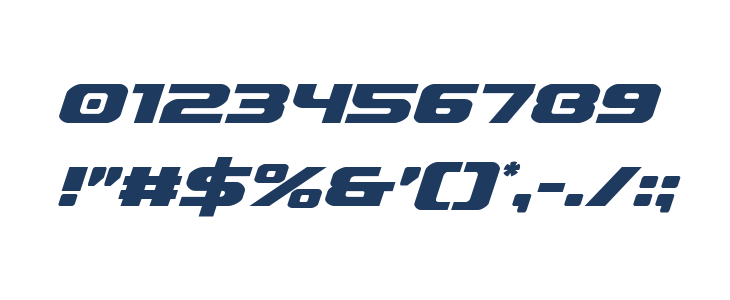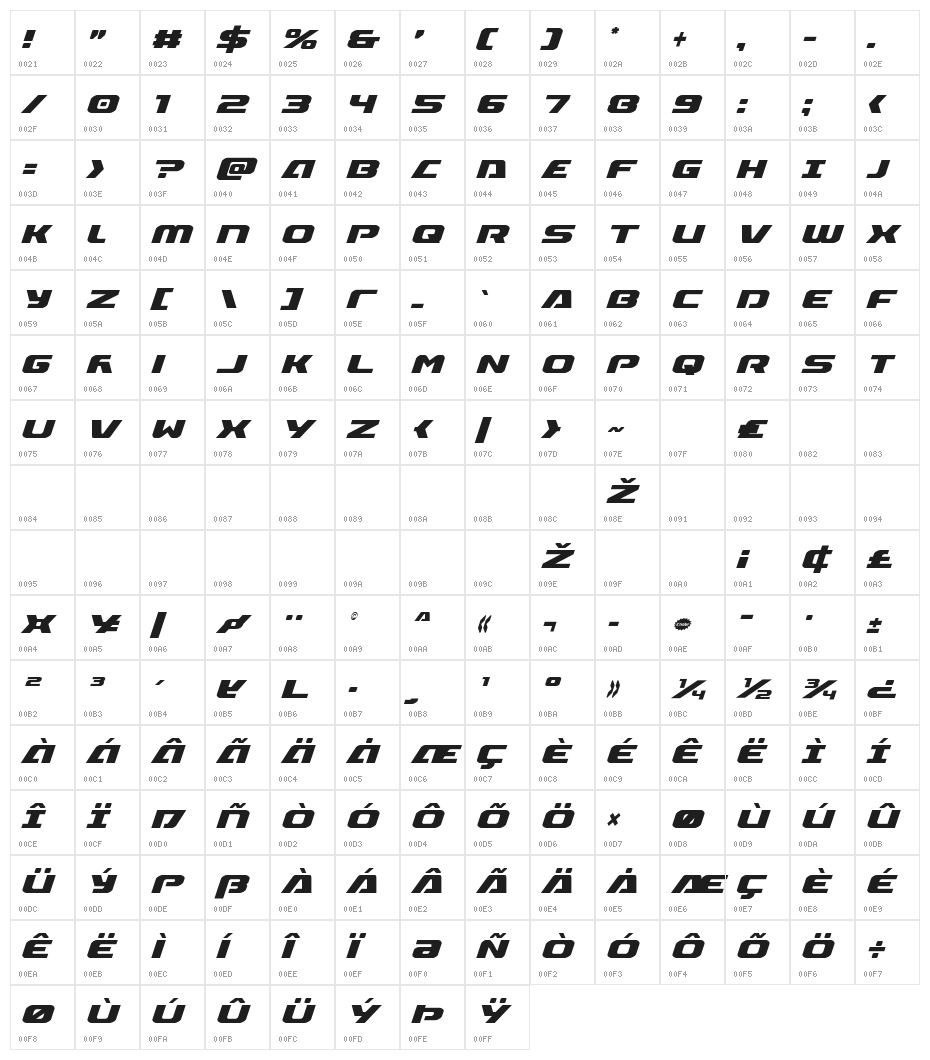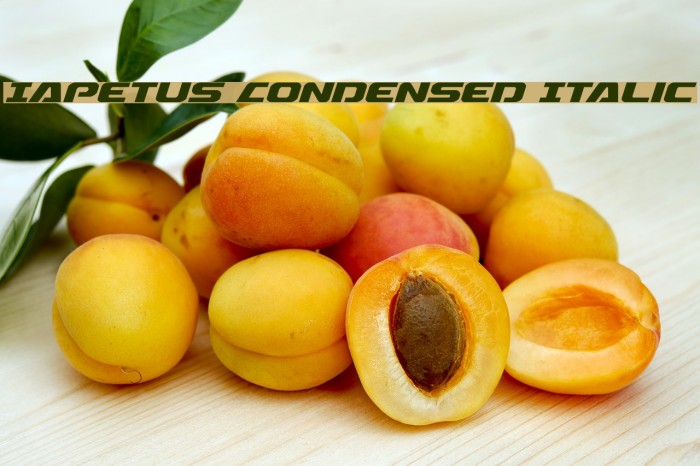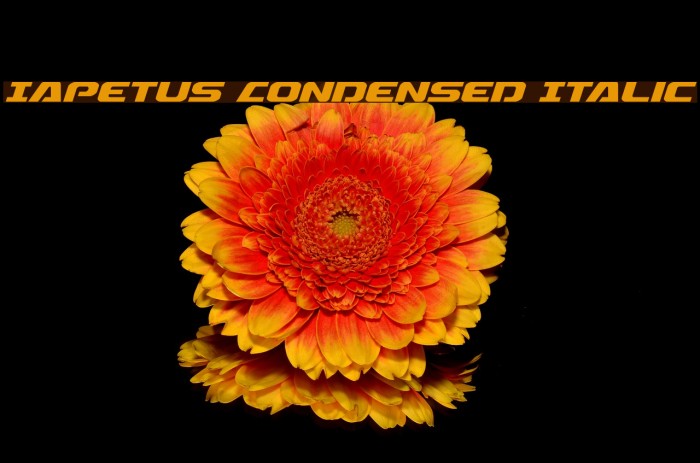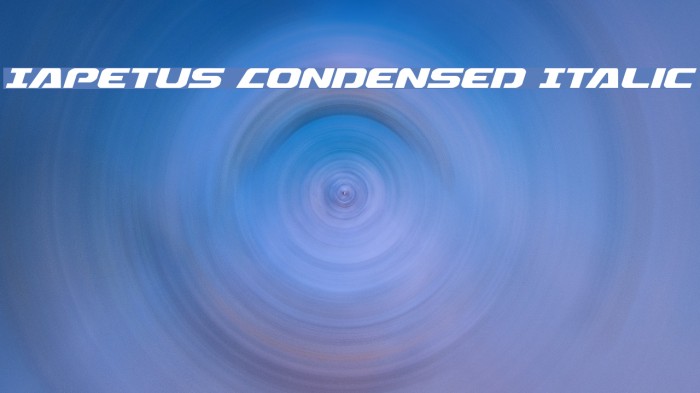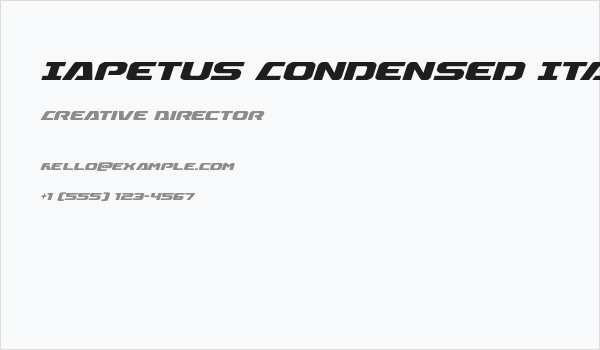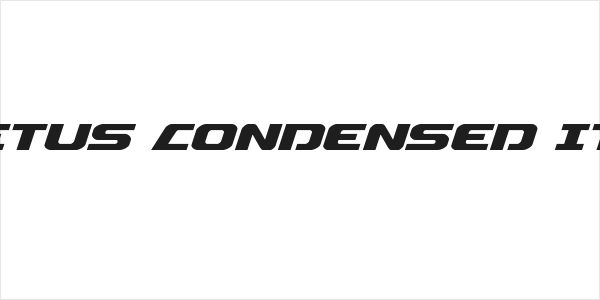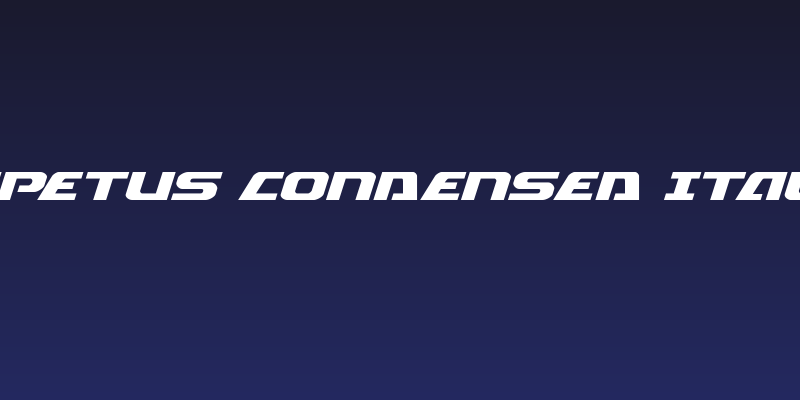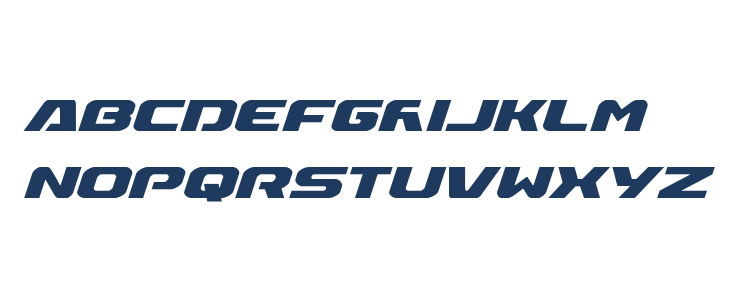
Iapetus Condensed Italic Font
Iapetus Condensed Italic Description
This font exhibits a bold, futuristic style with a strong emphasis on geometric shapes and sharp angles. The characters are condensed and italicized, giving them a dynamic and forward-leaning appearance. The uppercase letters are particularly striking, with a uniform height and consistent stroke width that enhances readability. The lowercase letters maintain the same angular style, ensuring cohesion across different text cases. Numbers and special characters are designed with the same attention to detail, making them suitable for a variety of contexts. The overall design is sleek and modern, ideal for projects that require a bold statement.
| Proposed Projects | Ideal for technology branding, sci-fi movie posters, video game titles, and modern advertising campaigns. |